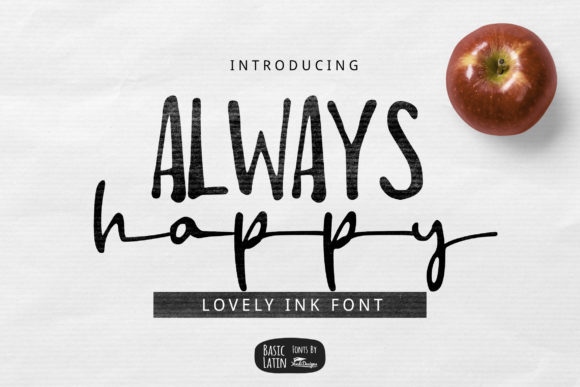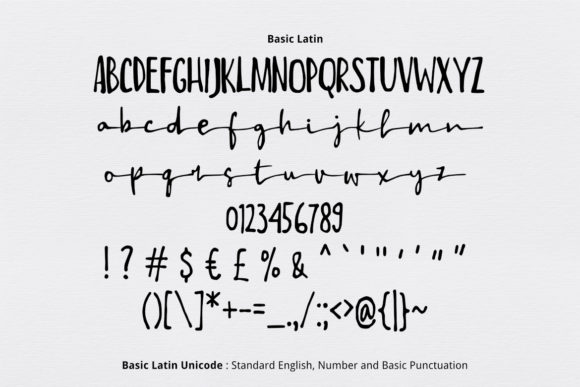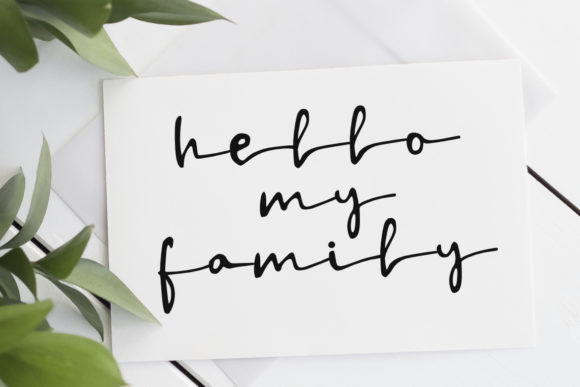
Always Happy Font
About Always Happy Font
Always Happy is a gorgeous and delicate script with an undeniably authentic feel. Get inspired by its contemporary look & feel!